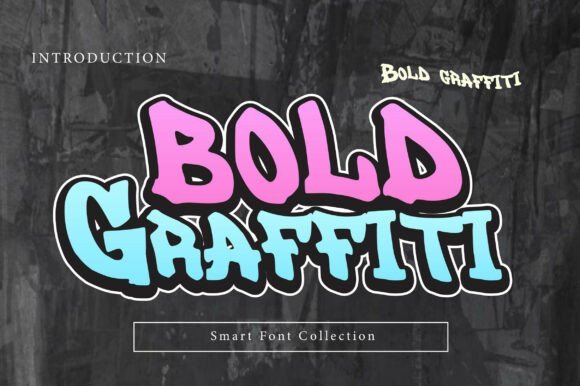
Unleash Your Creativity with the Bold Graffiti Font
You’re sitting at your desk, staring at a blank canvas, and suddenly, a spark of creativity strikes. You envision a bold, eye-catching design that screams attitude and energy. That’s exactly what the Bold Graffiti Font is all about – capturing the raw essence of street art and modern hip-hop aesthetics in a single, powerful typeface.
With its thick strokes, playful curves, and freehand flow, the Bold Graffiti Font is the perfect tool for designers who want to add a rebellious vibe to their projects. Whether you’re creating urban-themed branding, bold headline typography, or eye-catching graphics, this font delivers impact with personality. Its versatility and bold attitude make it a valuable addition to any designer’s toolkit.
Bold Graffiti Font Key Features
- Unique Characteristics: Features a bold, graffiti-inspired design with dynamic strokes and intricate details, adding a touch of edginess to any text.
- Character Set: Includes a comprehensive character set, including Latin, Cyrillic, and Greek alphabets, as well as punctuation and symbols.
- Font Weight: Available in regular and bold weights, allowing for flexibility in font styling and emphasis.
Bold Graffiti Font Review
Overall, I’m quite impressed with the Bold Graffiti Font. Here’s what I like:
- ✨ It’s incredibly versatile – from headings to body text, it’s perfect for a wide range of applications.
- ✨ The font is highly customizable, making it easy to tailor to your specific design needs.
- ✨ It’s great for creating a bold, eye-catching visual statement, which is perfect for grabbing the user’s attention.
However, there are a few limitations:
- ⚠️ The font may not be suitable for very long blocks of text, as it can become overwhelming and difficult to read.
- ⚠️ It may not be the best choice for formal or professional designs, as it can come across as too playful or casual.
- ⚠️ Some users may find the font too loud or overwhelming, so it’s essential to use it in moderation.
In conclusion, I think the Bold Graffiti Font is a great addition to any designer’s toolkit. While it may have some limitations, it’s a versatile and customizable font that can add a lot of visual interest to your designs. Just be sure to use it thoughtfully and in moderation.
Use the Bold Graffiti font for:
- Street art or graffiti-inspired designs.
- Urban or edgy logos and branding.
- Emphasizing bold headlines or titles.
- Adding a touch of graffiti flair to social media graphics.